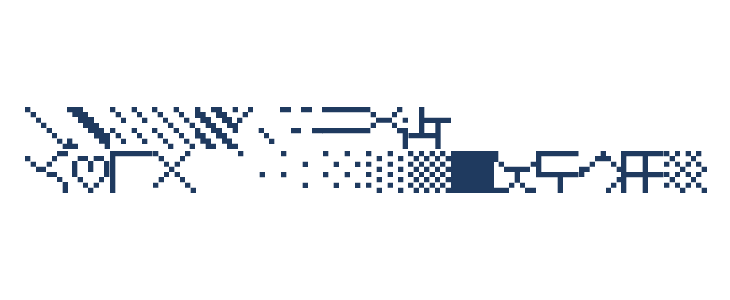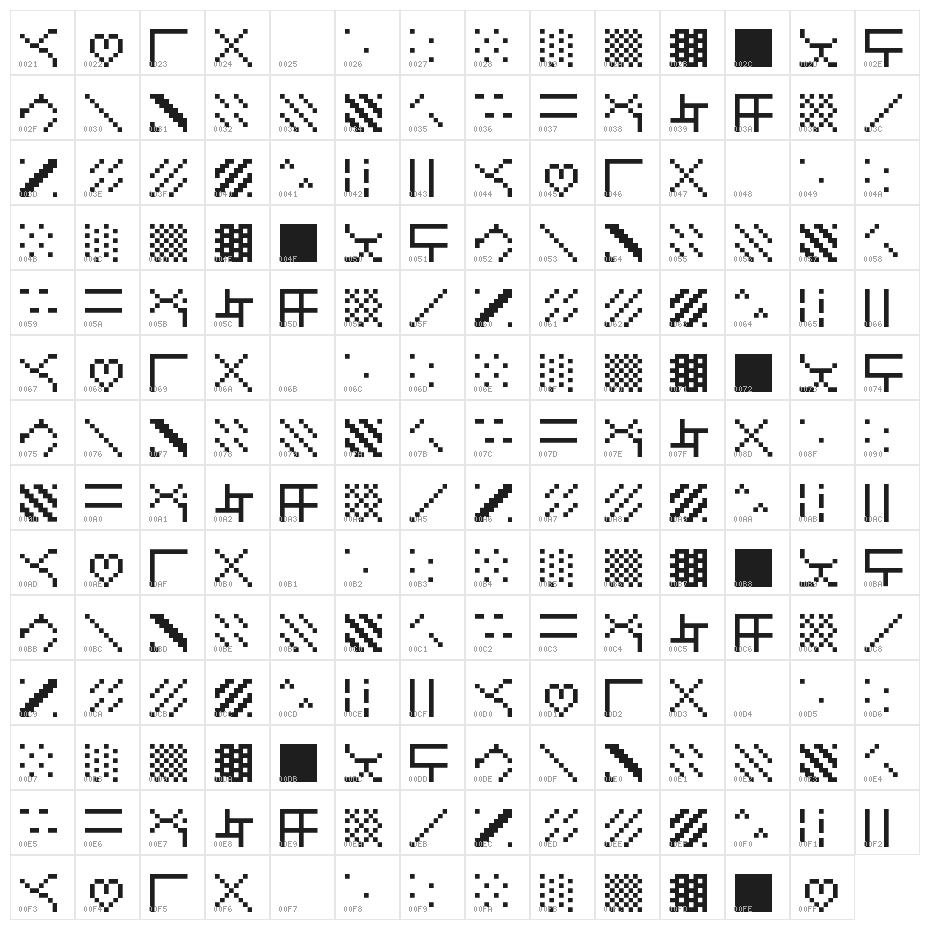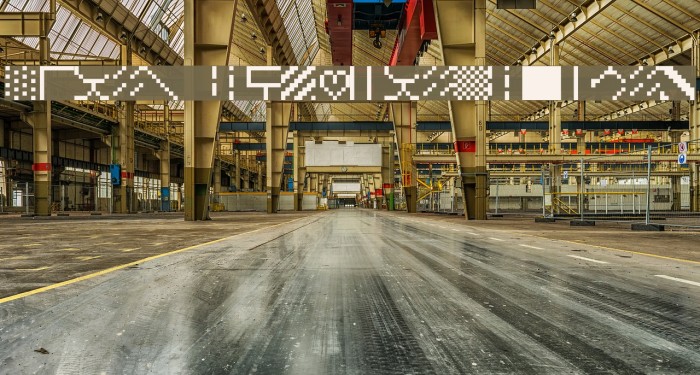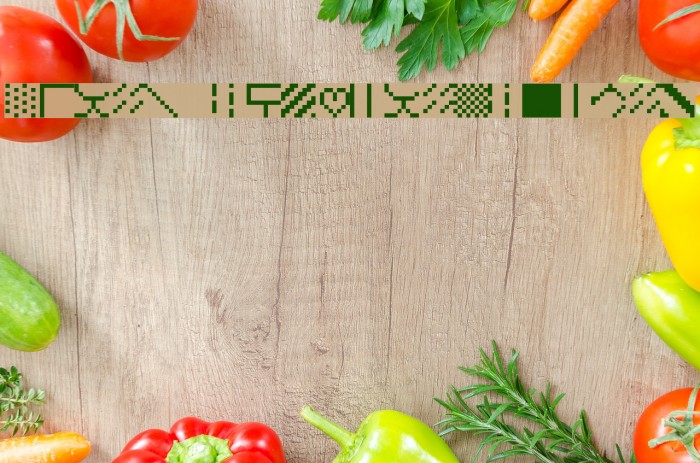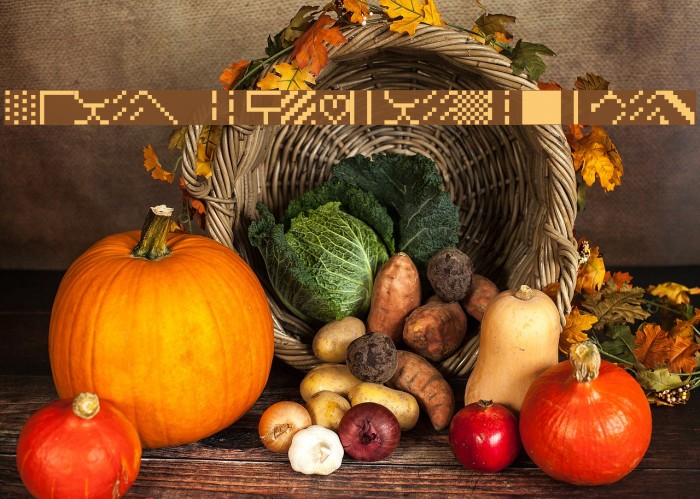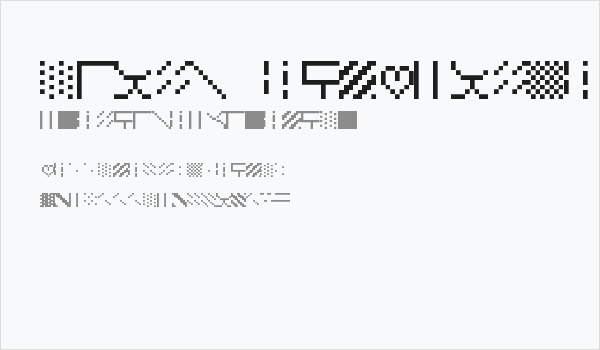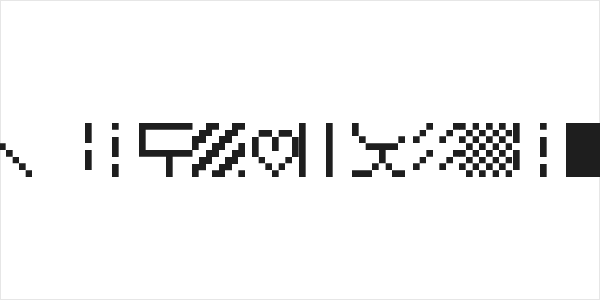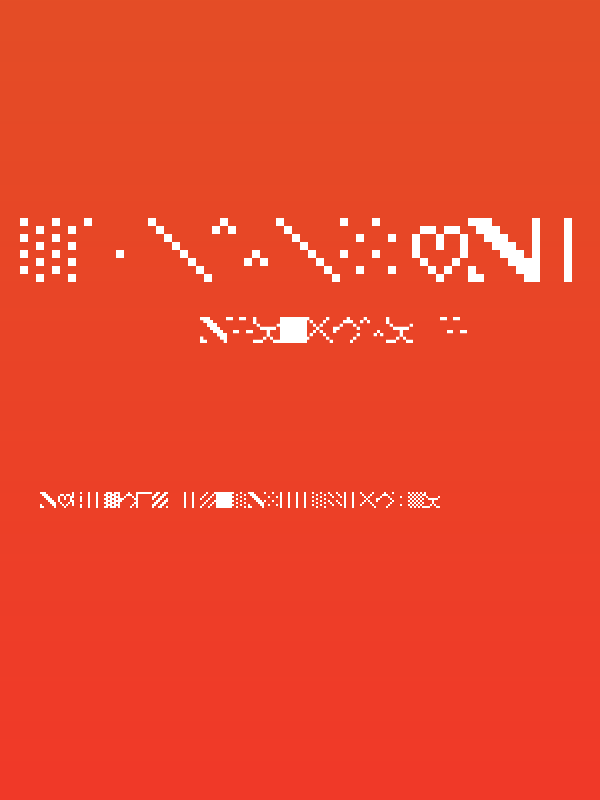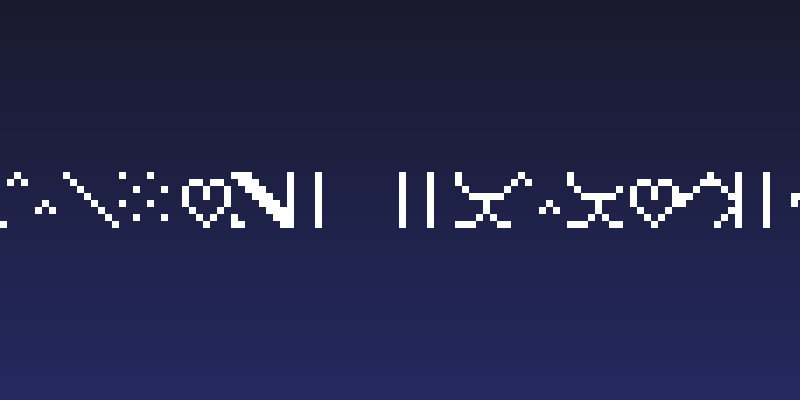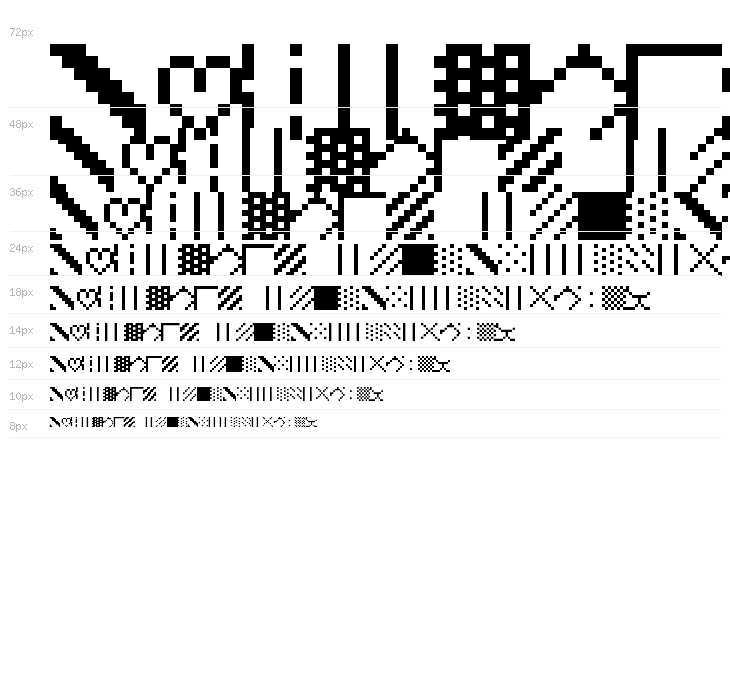
LisaSketch Paper Raw Font
LisaSketch Paper Raw Description
This image does not contain a valid font. The characters appear to be abstract or decorative symbols rather than a coherent typeface. The design is composed of pixelated patterns and shapes that do not correspond to standard alphanumeric characters or punctuation marks. The overall appearance is more akin to a piece of digital art or a graphical representation rather than a functional font for text display.
| Overall Style | Abstract, Digital Art |
| Use Case | Decorative elements, Art projects |
| Proposed Projects | This design could be used in digital art projects, abstract graphic designs, or as a decorative element in multimedia presentations. |